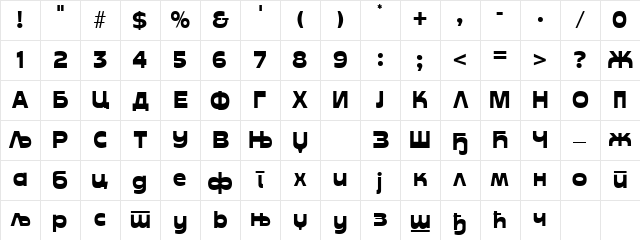
C_Cuckoo Regular
C_Cuckoo Family
Design Context for C_Cuckoo
C_Cuckoo is a composed and adaptable typeface that performs quietly and consistently across a wide range of design contexts.